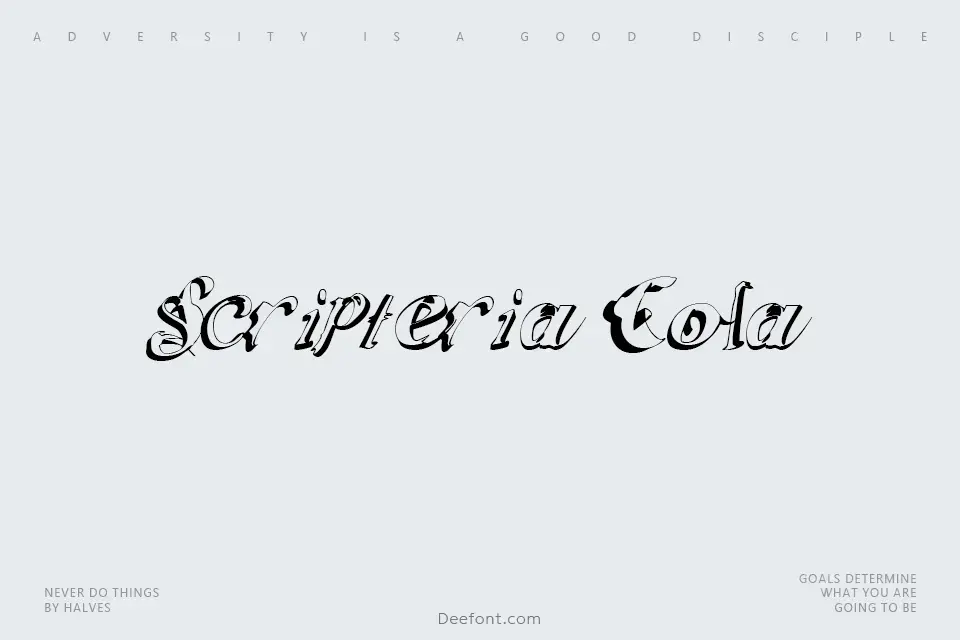
Scripteria Cola Gummy Toid Font
Scripteria Cola + Gummy + Toid is a grungy trash script typeface with raw, unpolished letterforms and chaotic strokes. This distinctive font blends graffiti aesthetics with a punk attitude, perfect for posters, album covers, band logos, urban street art, and alternative branding. Its rough texture suits Halloween themes, horror titles, and projects demanding bold visual impact.